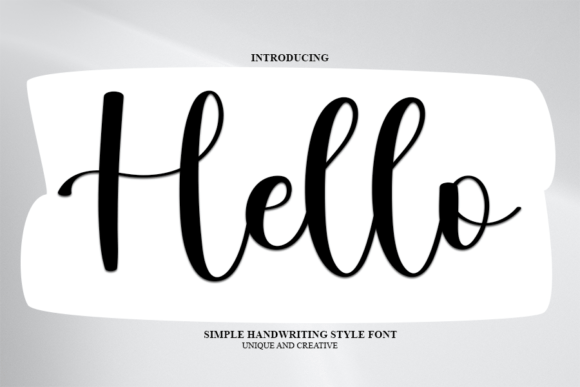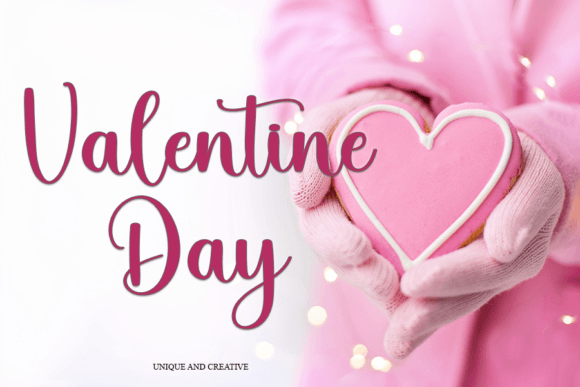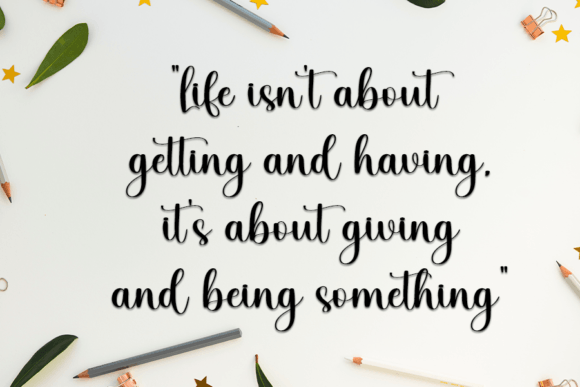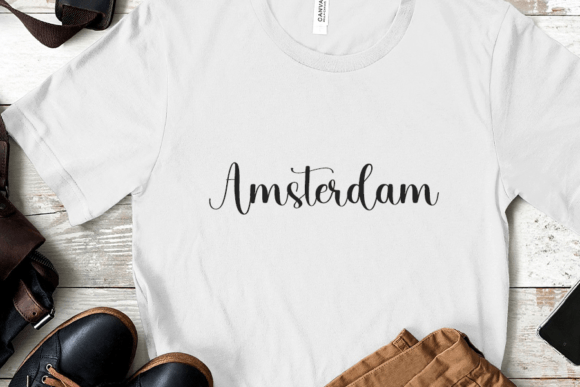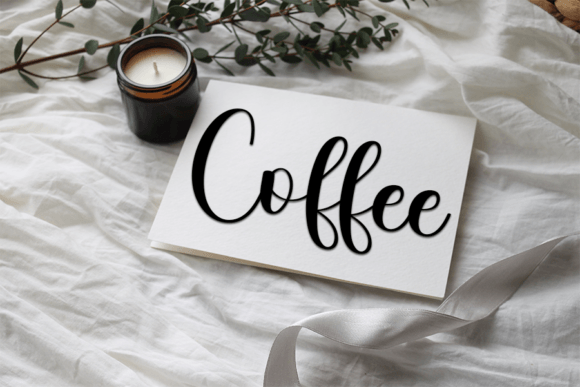
About Hello
Hello is a cool and modern handwritten font. Whether you’re using it for crafts, digital design, presentations, or creating greeting cards, this font has the potential to become your go-to font, whatever the occasion.